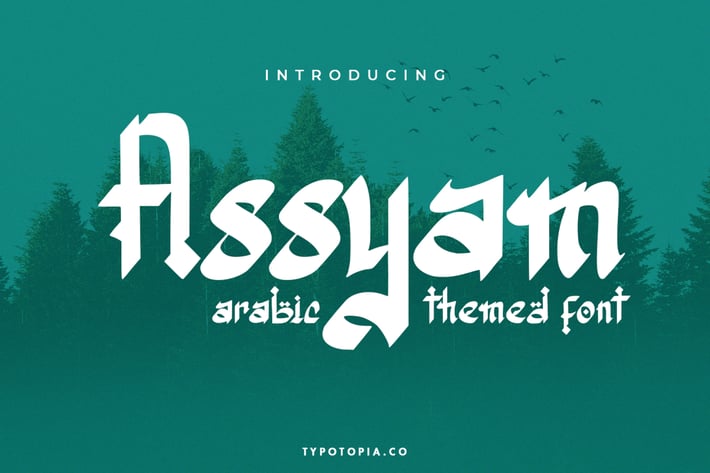
Assyam – Arabic Themed Typeface
Introducing Assyam – Arabic Themed Typeface. This perfect for the purposes of designing templates, brochures, videos, advertising branding, logos and more.
+ Multilingual Support
Fonts include multilingual support for; Afrikaans, Albanian, Catalan, Czech, Danish, Dutch, English, Estonian, Finnish, French, German, Hungarian, Italian, Latvian, Lithuanian, Norwegian, Polish, Portugese, Slovak, Slovenian, Spanisch, Swedish.